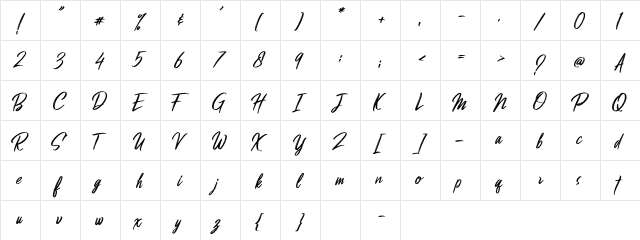
Hibrush_DEMO Regular
Design Context for Hibrush_DEMO Typeface
Hibrush_DEMO brings a calligraphic fluidity to the page — its connecting strokes and expressive curves give it an unmistakably human quality.
Font Pairing: Combine Hibrush_DEMO with a simple geometric sans for maximum contrast — the tension between flowing curves and clean structure is a classic typographic pairing.
Pro Tip: Use Hibrush_DEMO for short runs of text — names, titles, or taglines. Extended body copy in script faces tires the eye quickly.